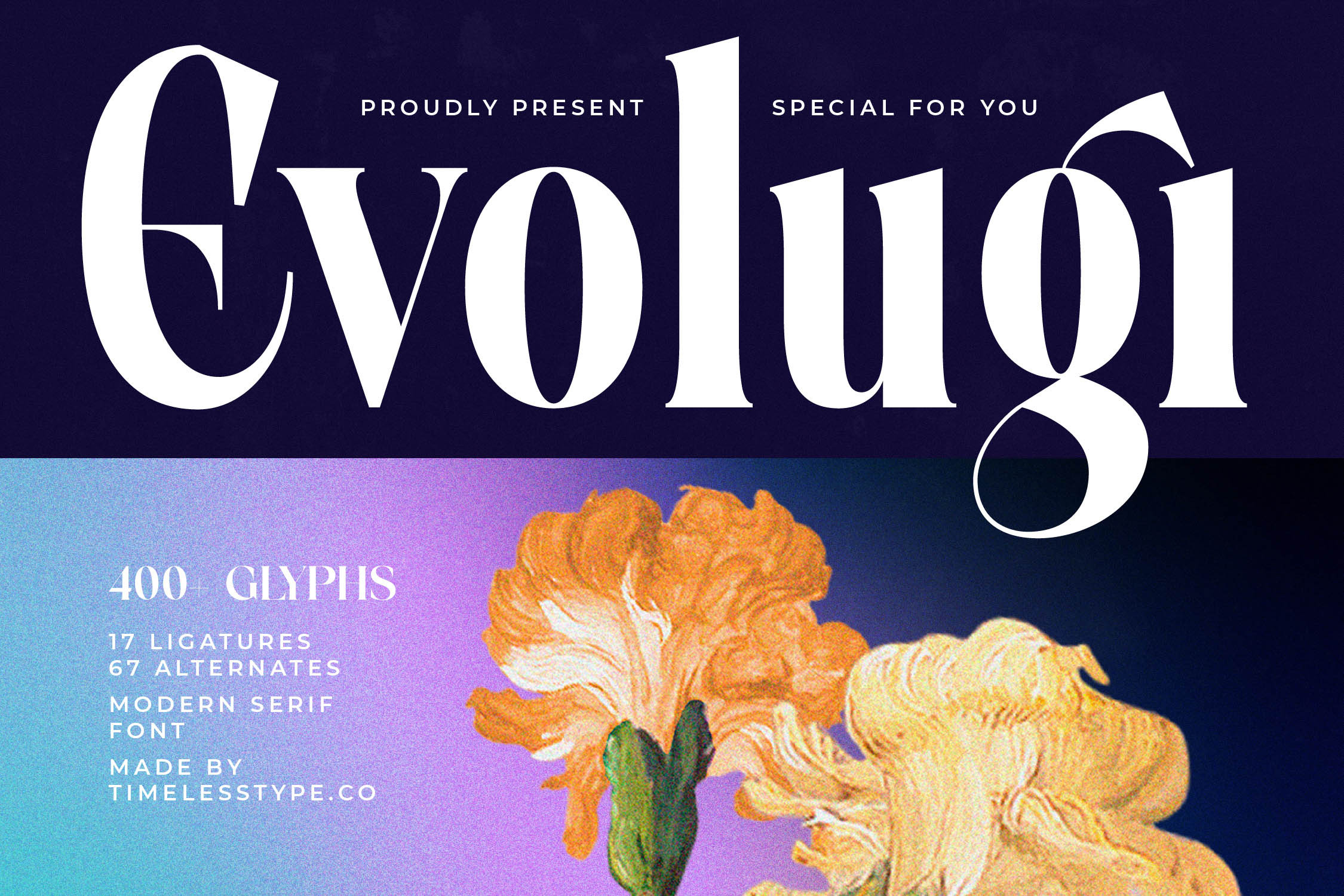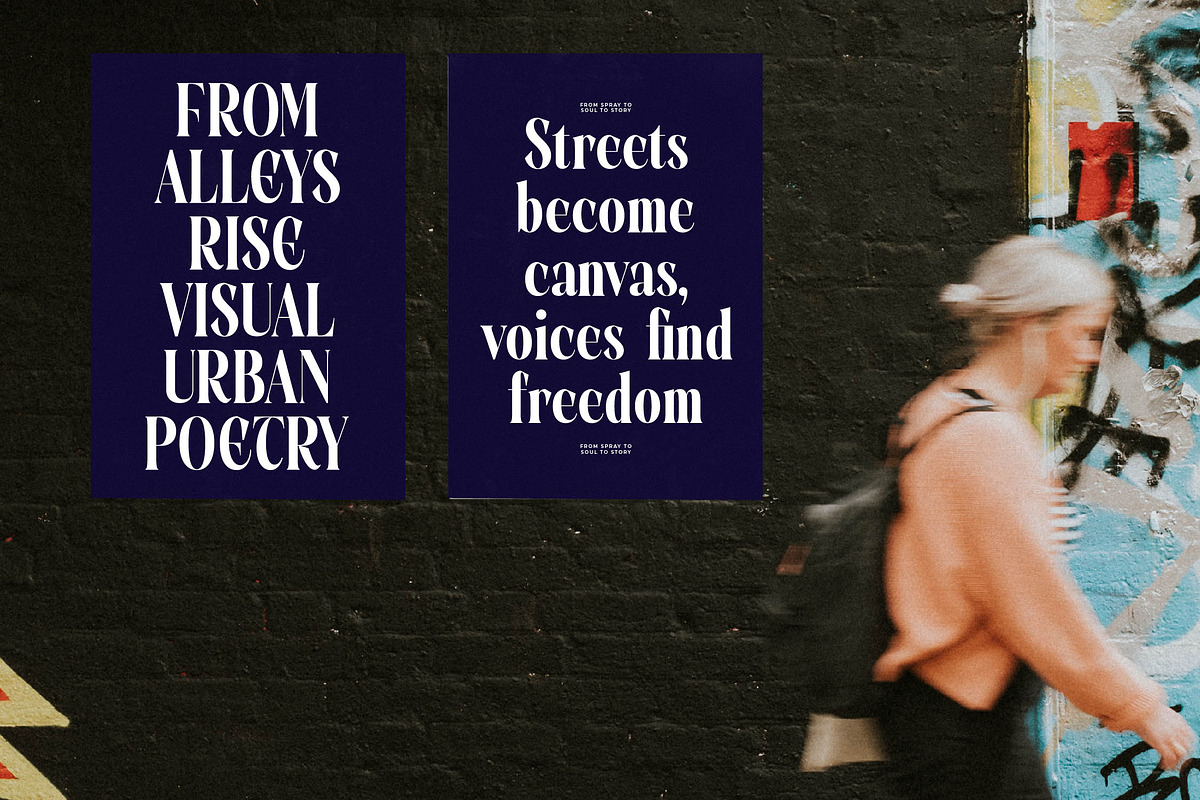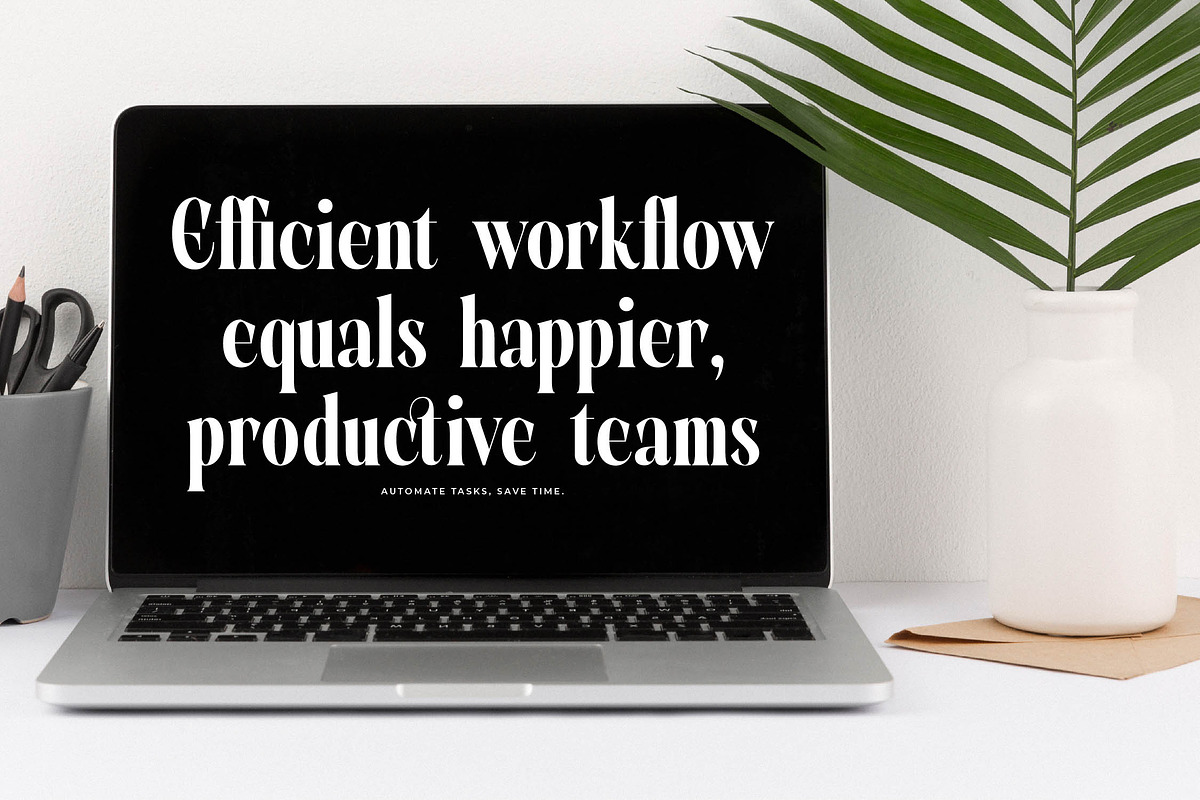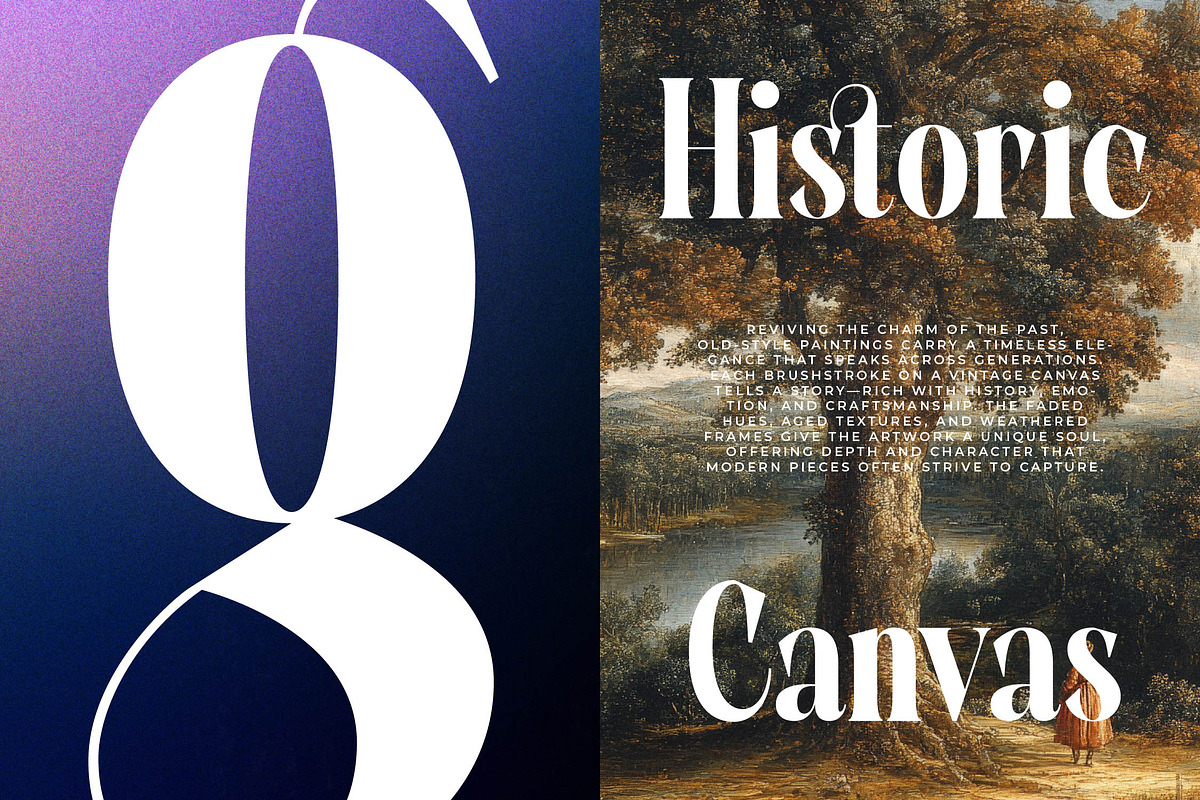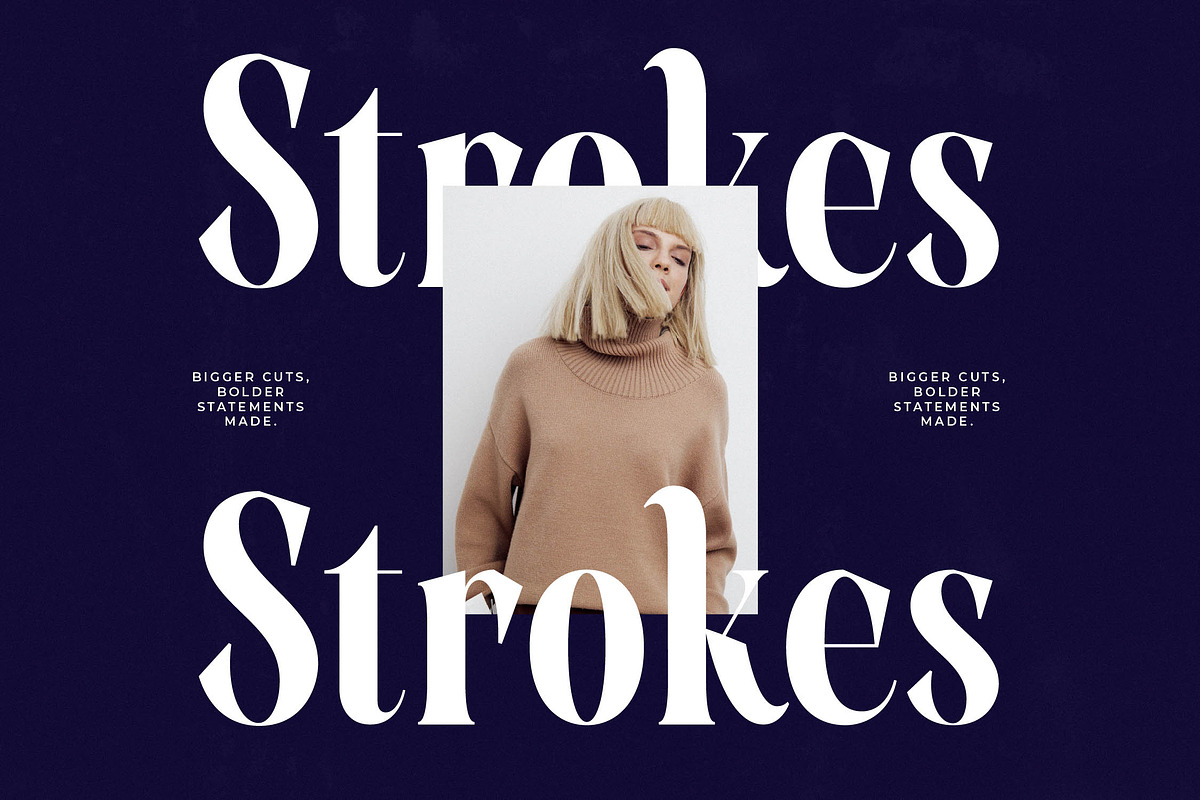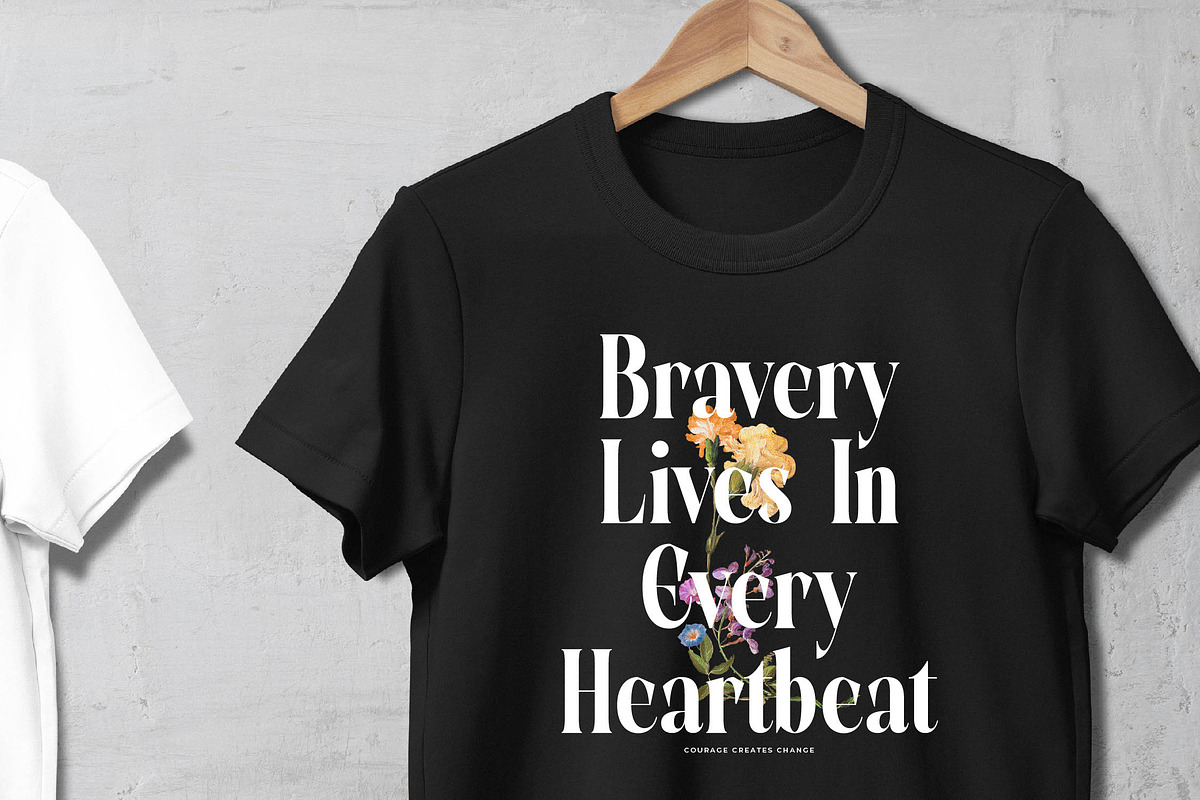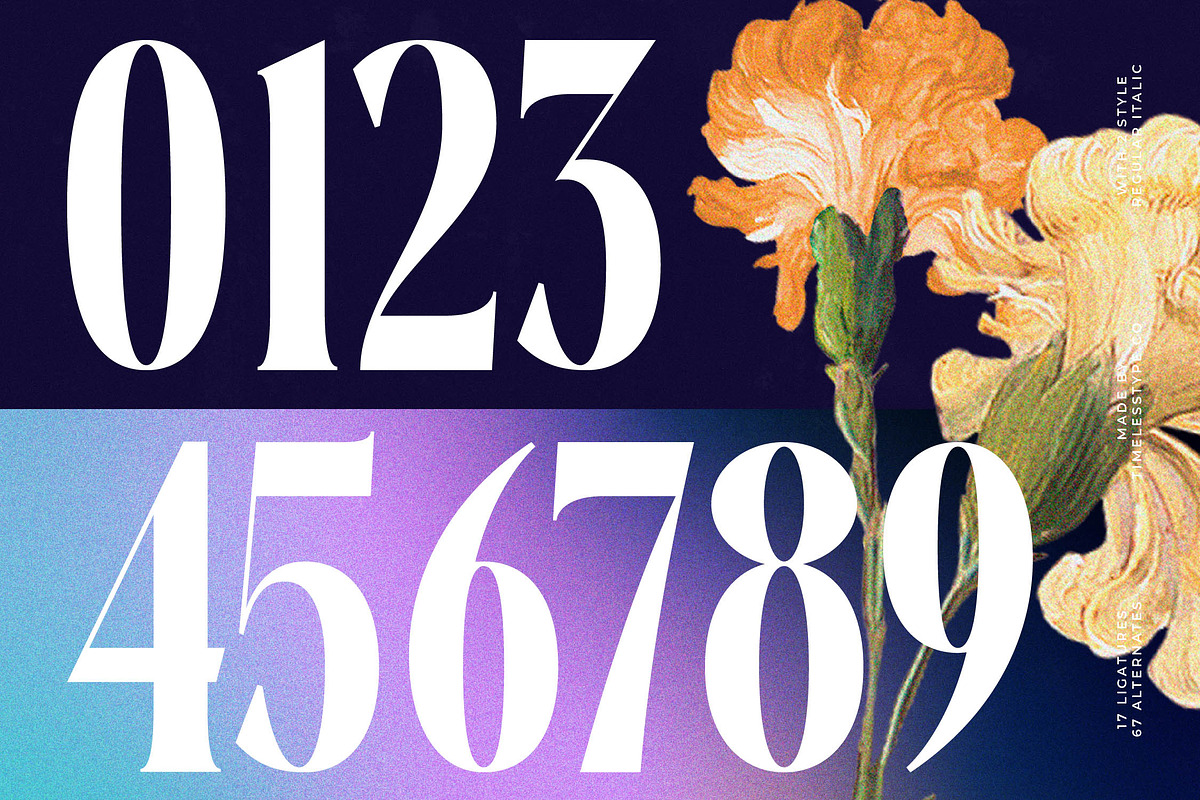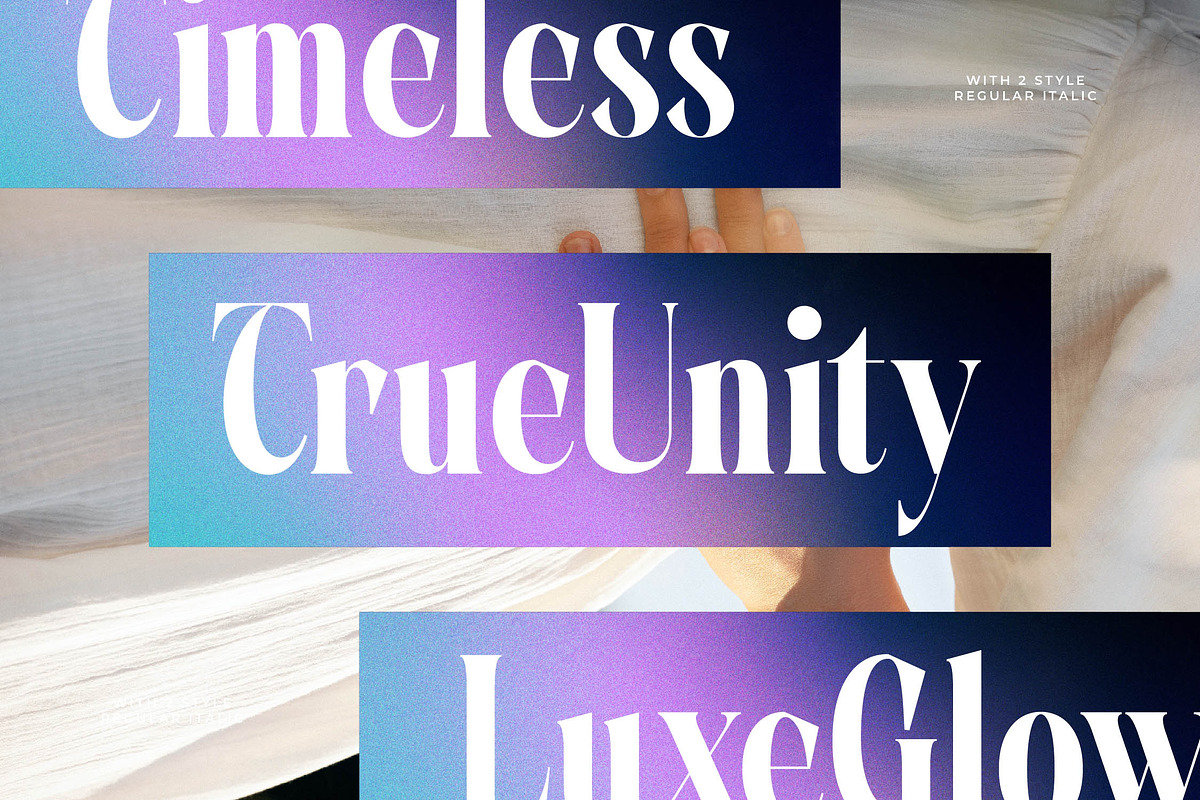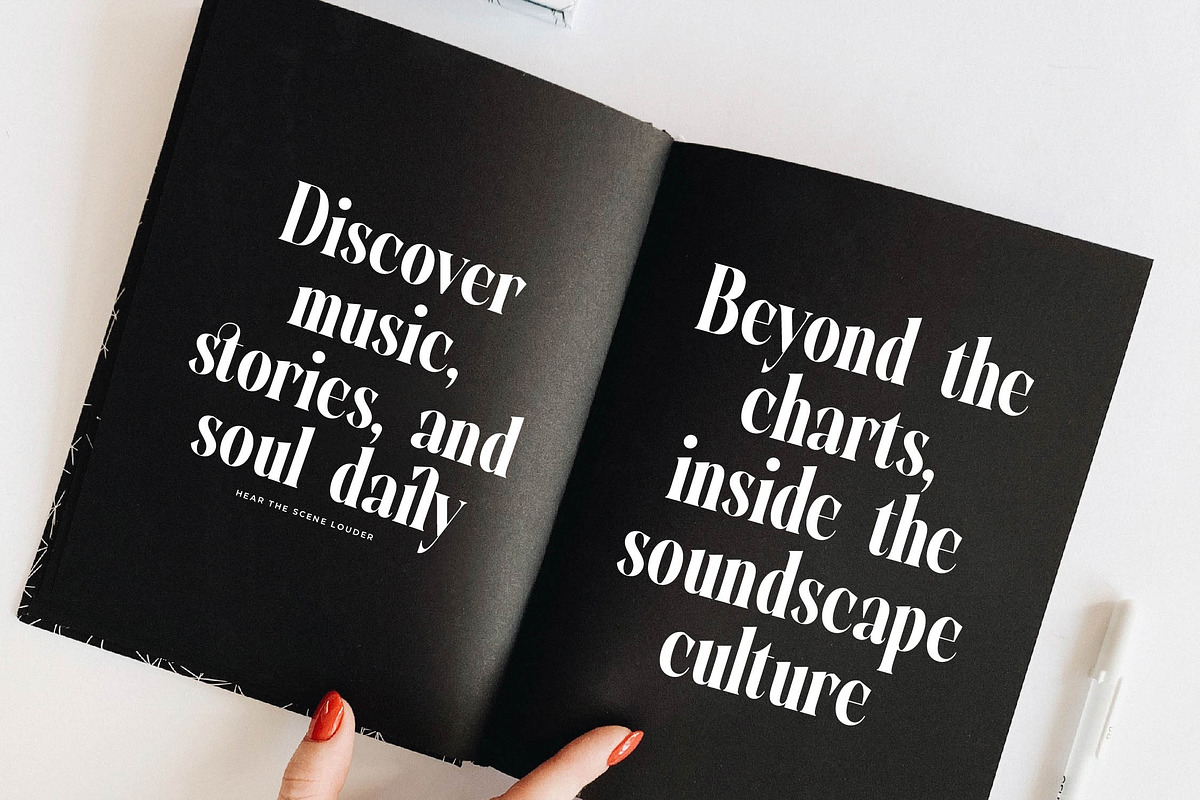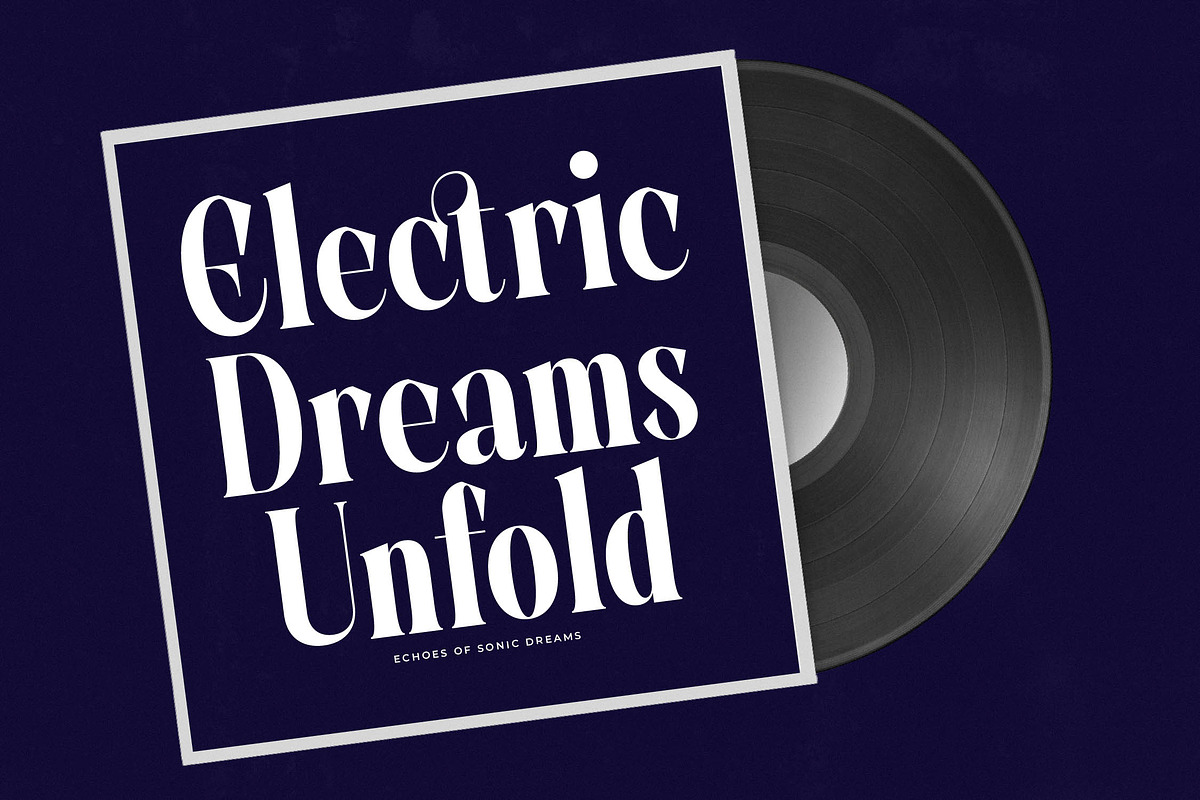
Evolugi Modern Luxury Serif Font
Elevate your creative projects with the sophisticated allure of Evolugi, a font designed to command attention and inspire awe. This exquisite typeface brings a touch of timeless grace to every canvas, ensuring your message is delivered with unparalleled style.
Drawing inspiration from the fluid elegance of high-fashion editorial spreads and the bold structural integrity of modern architecture, this font captures a unique intersection of history and innovation. Its sharp serifs and curvaceous forms reflect a meticulous attention to detail, reminiscent of vintage luxury logos reimagined for the contemporary digital era.
The soul of this modern serif display lies in its ability to balance delicate thin strokes with commanding thick weights, creating a sense of luxury typography that feels both intimate and grand. It is a high-contrast serif built for maximum branding impact, serving as a premier editorial font for those who refuse to settle for the ordinary.
Perfectly aligned with the current modern serif trend, this typeface meets the growing demand for editorial display fonts that offer more than just legibility. It caters to the shift toward character-driven typography, where every letterform serves as a standalone piece of art, making it an essential tool for forward-thinking designers.
This versatile typeface is the ideal choice for high-end logo design and comprehensive branding systems that require a distinctive voice. Whether utilized in upscale editorial layouts, premium product packaging, romantic wedding stationery, or avant-garde fashion campaigns, it delivers a polished and professional aesthetic.
The font package is packed with professional features including a vast library of ligatures and alternates that allow for endless customization. It includes unique swashes and full multilingual support with a comprehensive set of international characters, ensuring your designs can resonate with a global audience across all platforms.
- Ligature 17 Alternate 67